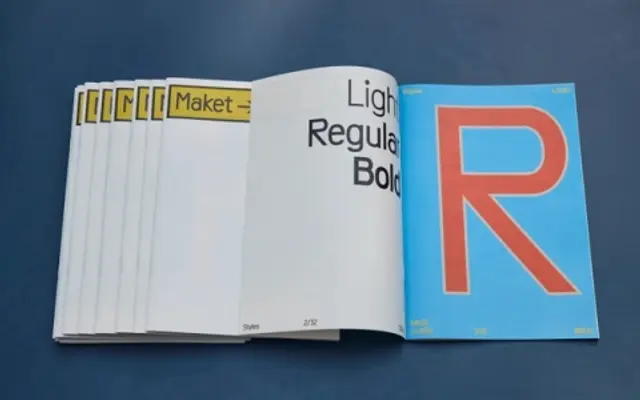
A three-weight grotesque sans covering Latin and Cyrillic across 72 languages, suited to text and display settings.
Maket is a clean grotesque sans offered in Light, Regular and Bold, with no italics in the family. Its dual-script coverage spanning Latin and Cyrillic across 72 languages makes it a practical choice for multilingual publishing and interface work. The specimen leans on architectural and cultural references, suggesting a positioning towards editorial and cultural institution contexts.
The specimen and weight range suggest a clean, functional grotesque sans-serif with no visible italic or decorative features, positioned for text and display use.